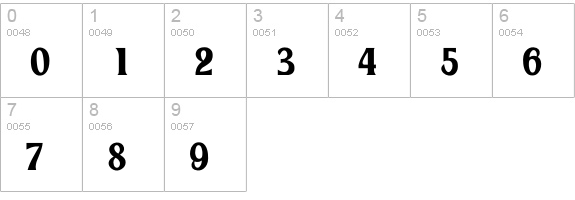
LookingGlass Font Details
LookingGlass font is a modern and stylish typeface that exudes elegance and sophistication. Its sleek lines and unique design make it perfect for a wide range of projects, from branding to editorial design. The font features a clean and minimalist look that is sure to make a statement. The best part is, LookingGlass font is available for free download at FontsMarket.com. This means you can easily incorporate this beautiful font into your designs without any cost. Don't miss out on this amazing opportunity to elevate your projects with the stunning LookingGlass font. Download it now and add a touch of class to your work!